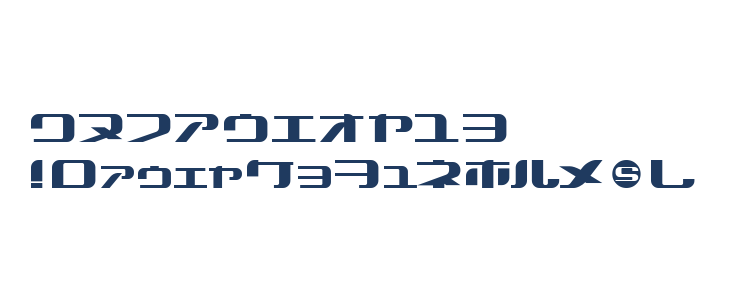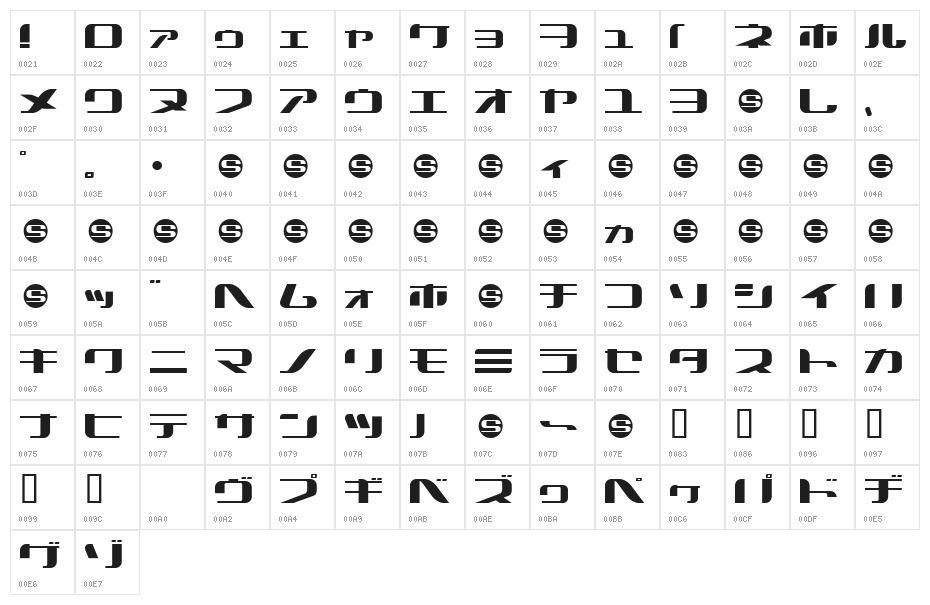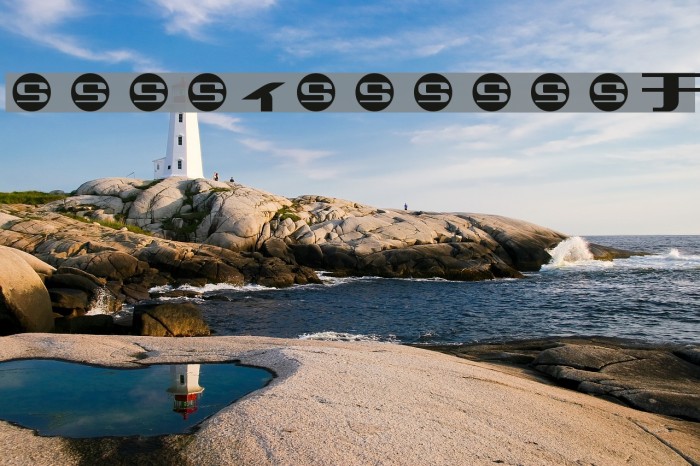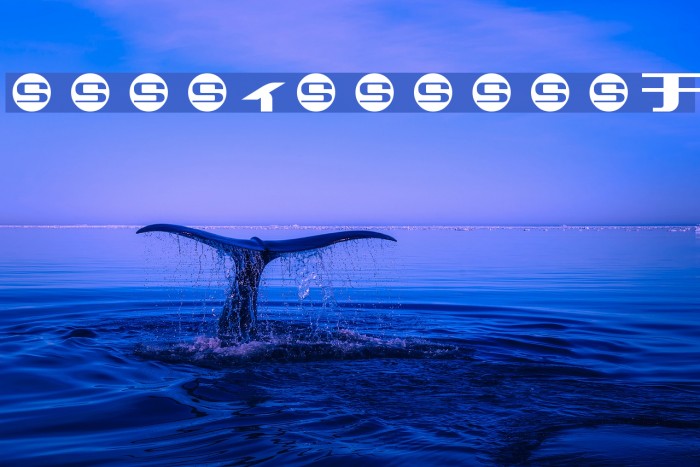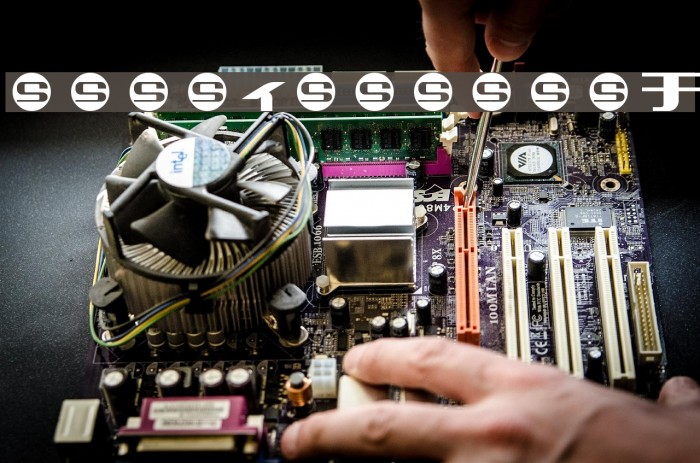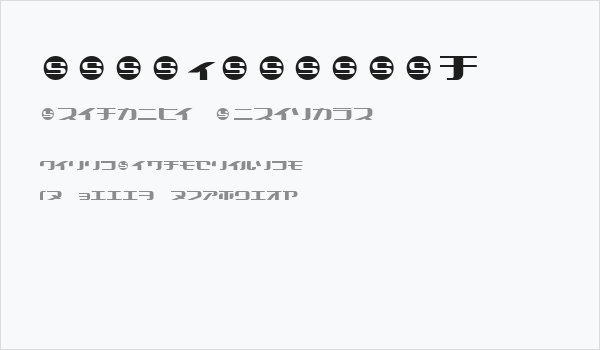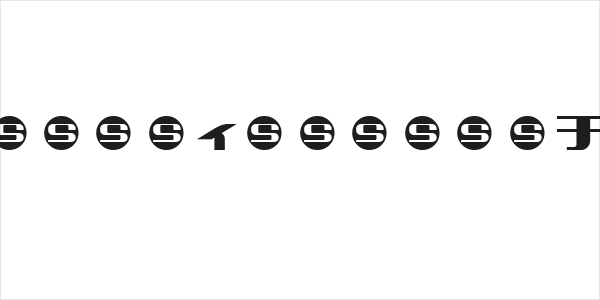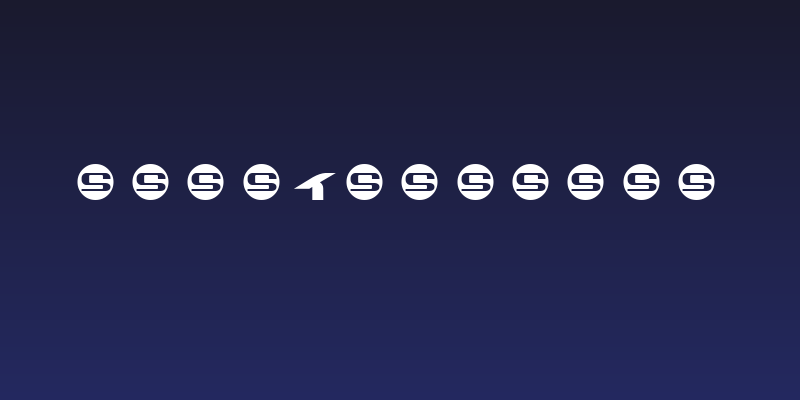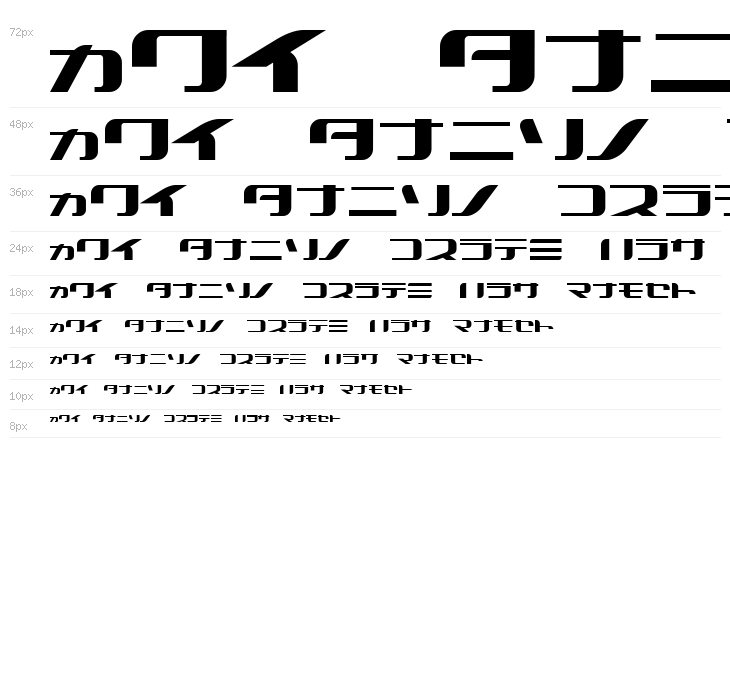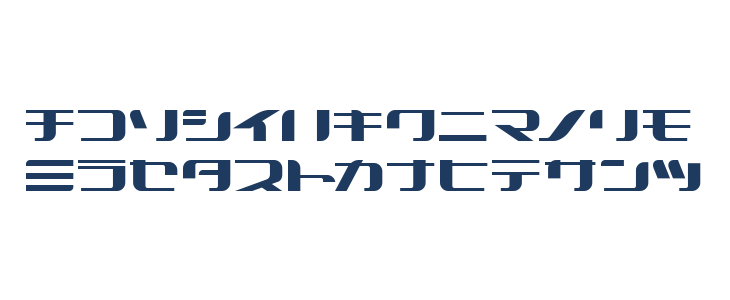
SUMMERCAMPKa Font
SUMMERCAMPKa Description
This font features a bold and geometric design, characterized by its strong, angular shapes and a futuristic aesthetic. The letters are constructed with a consistent stroke width, giving it a uniform appearance. The style is reminiscent of digital or sci-fi themes, with a modern and sleek look. The characters are tightly spaced, enhancing its compact and efficient design. This font is suitable for projects that require a contemporary and cutting-edge feel, such as technology branding, video game titles, or modern advertising campaigns.
| Proposed Projects | Ideal for technology branding, video game titles, modern advertising, and sci-fi themed projects. |